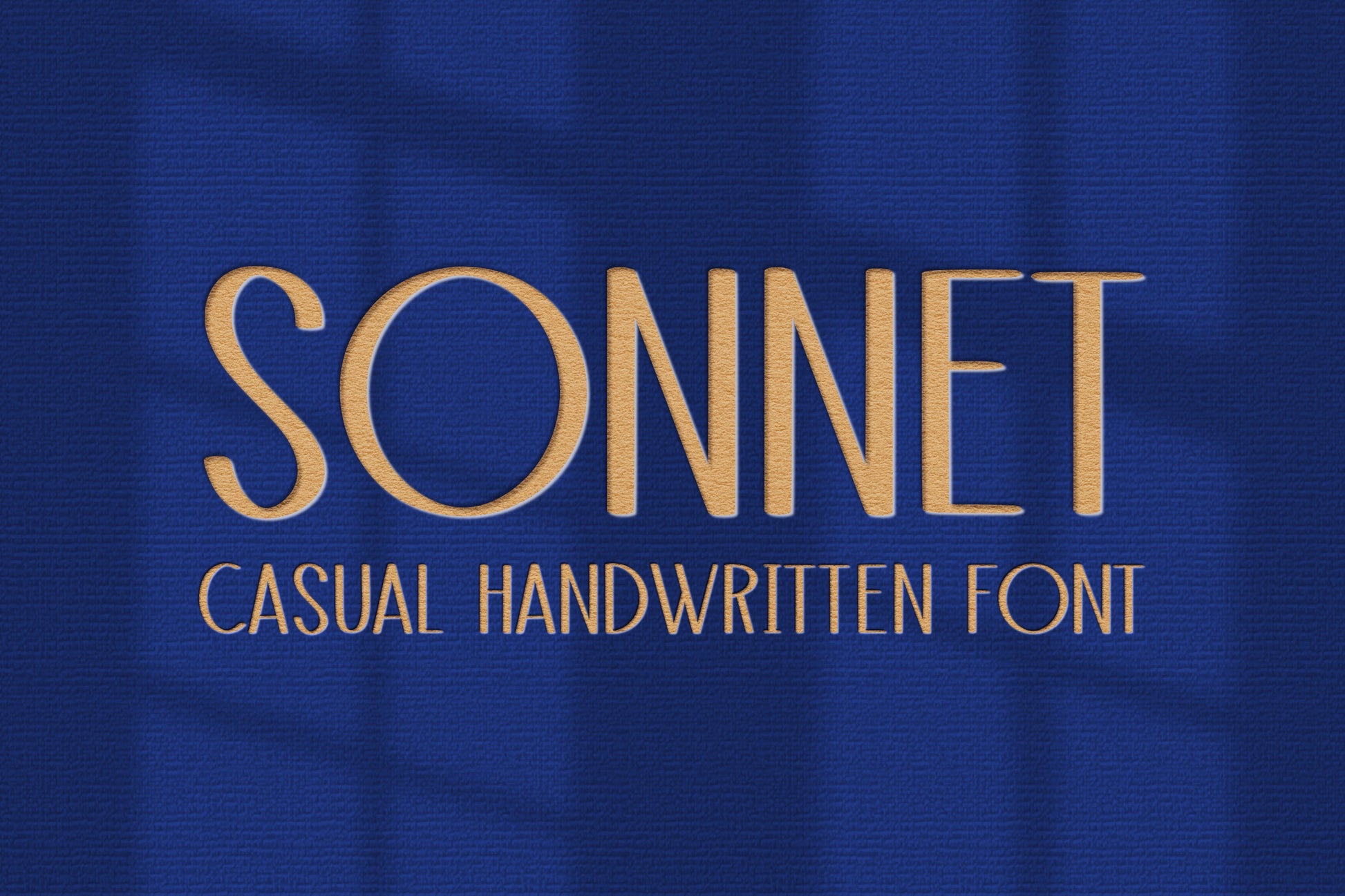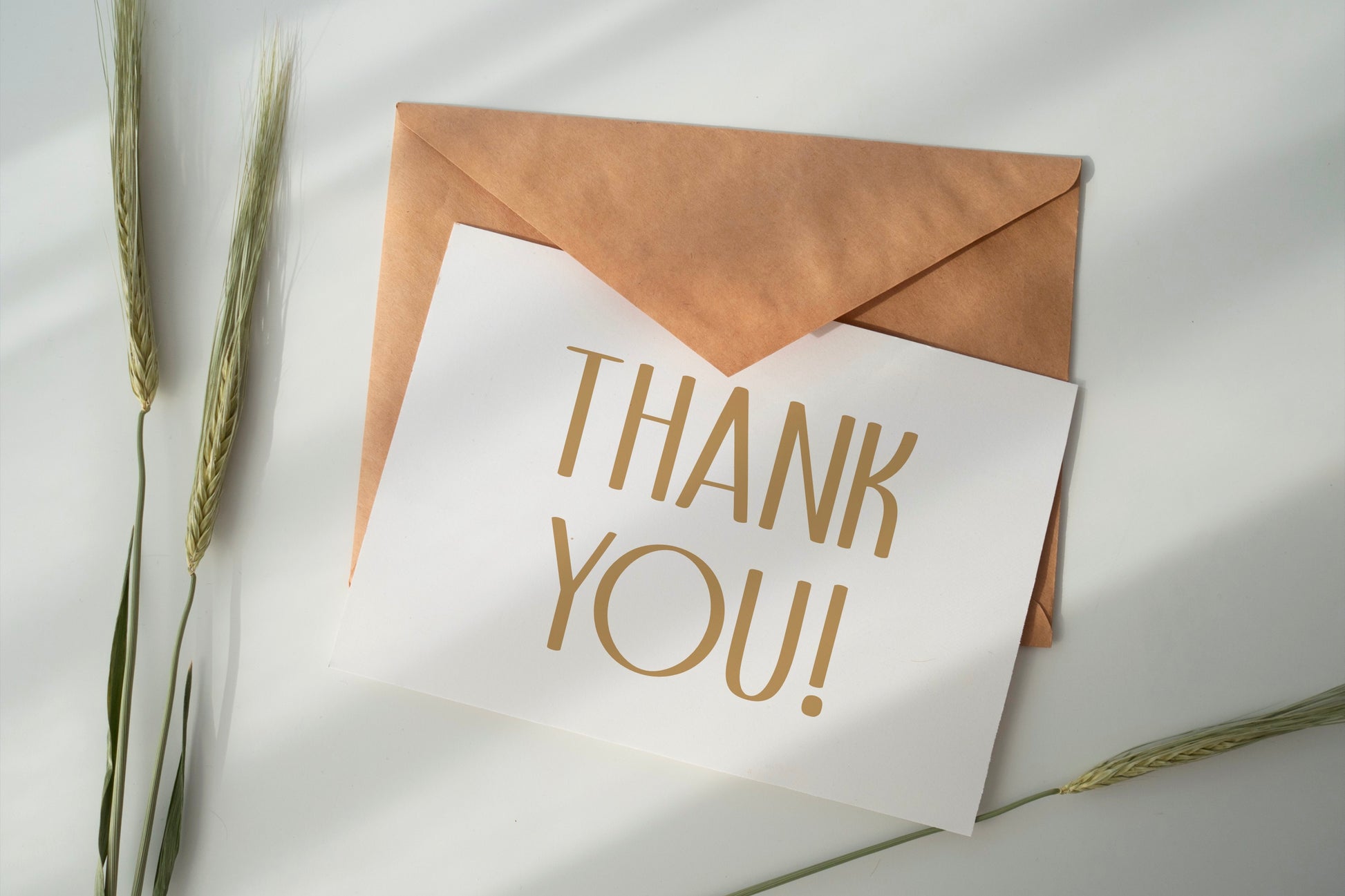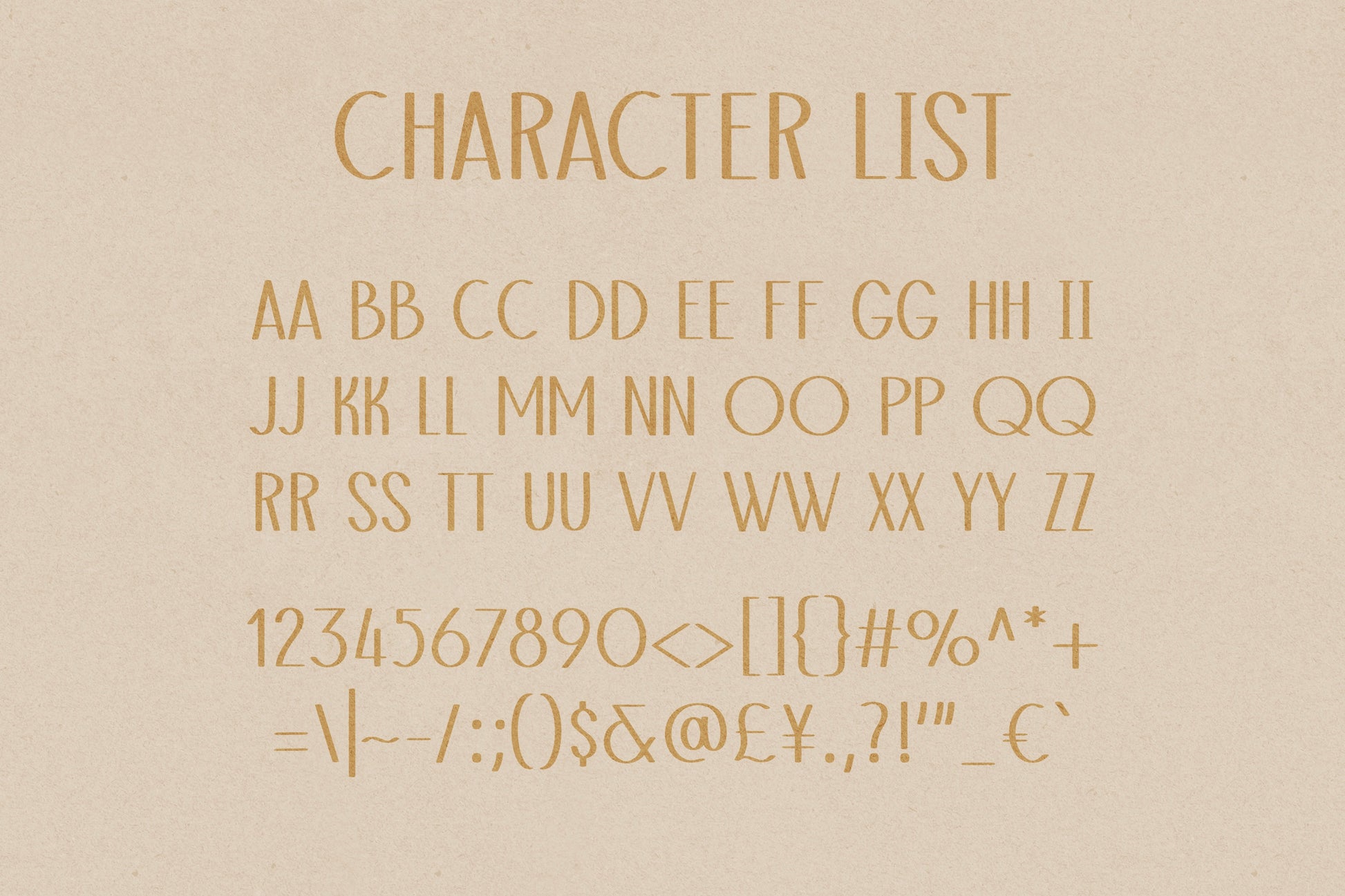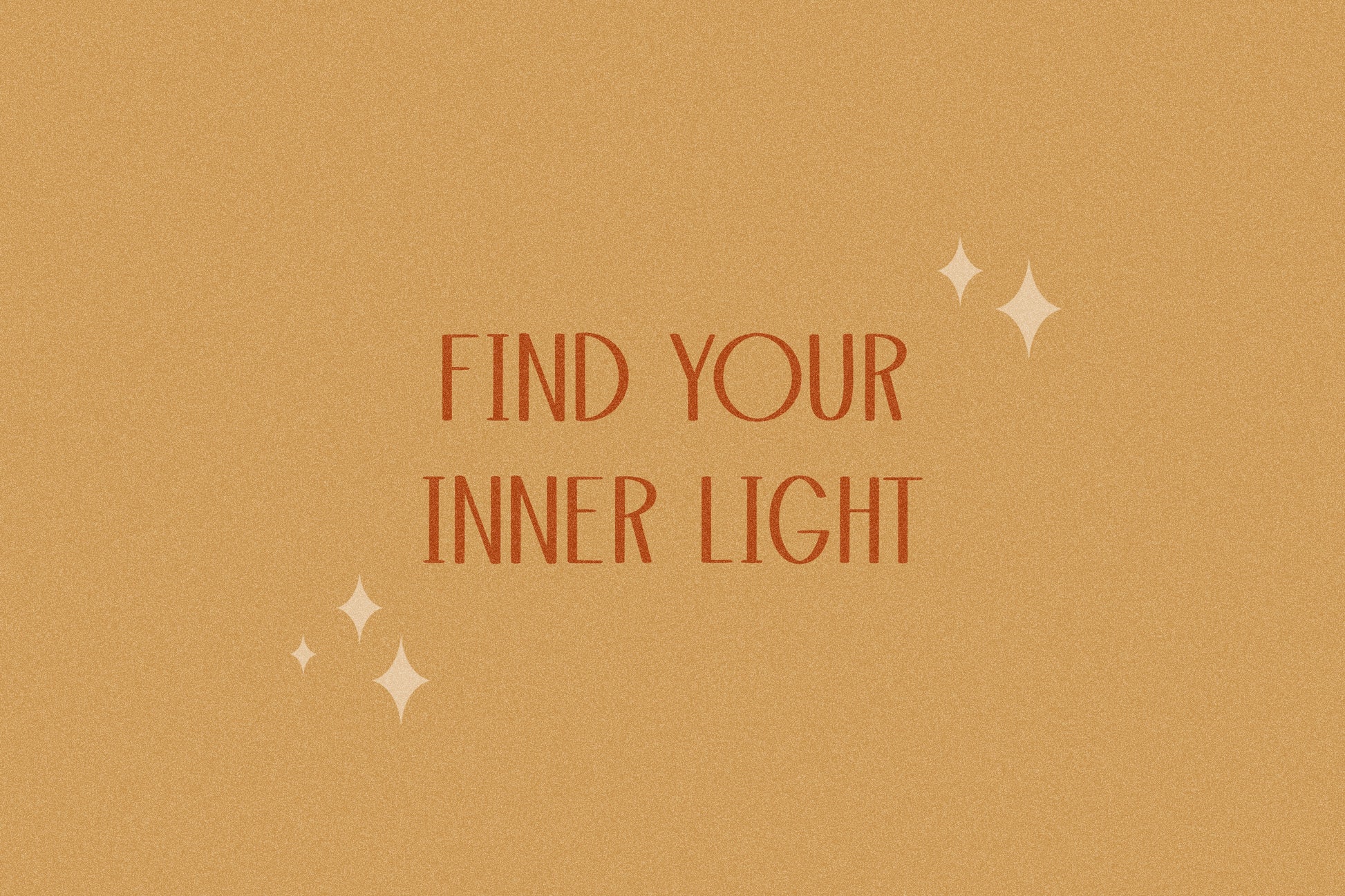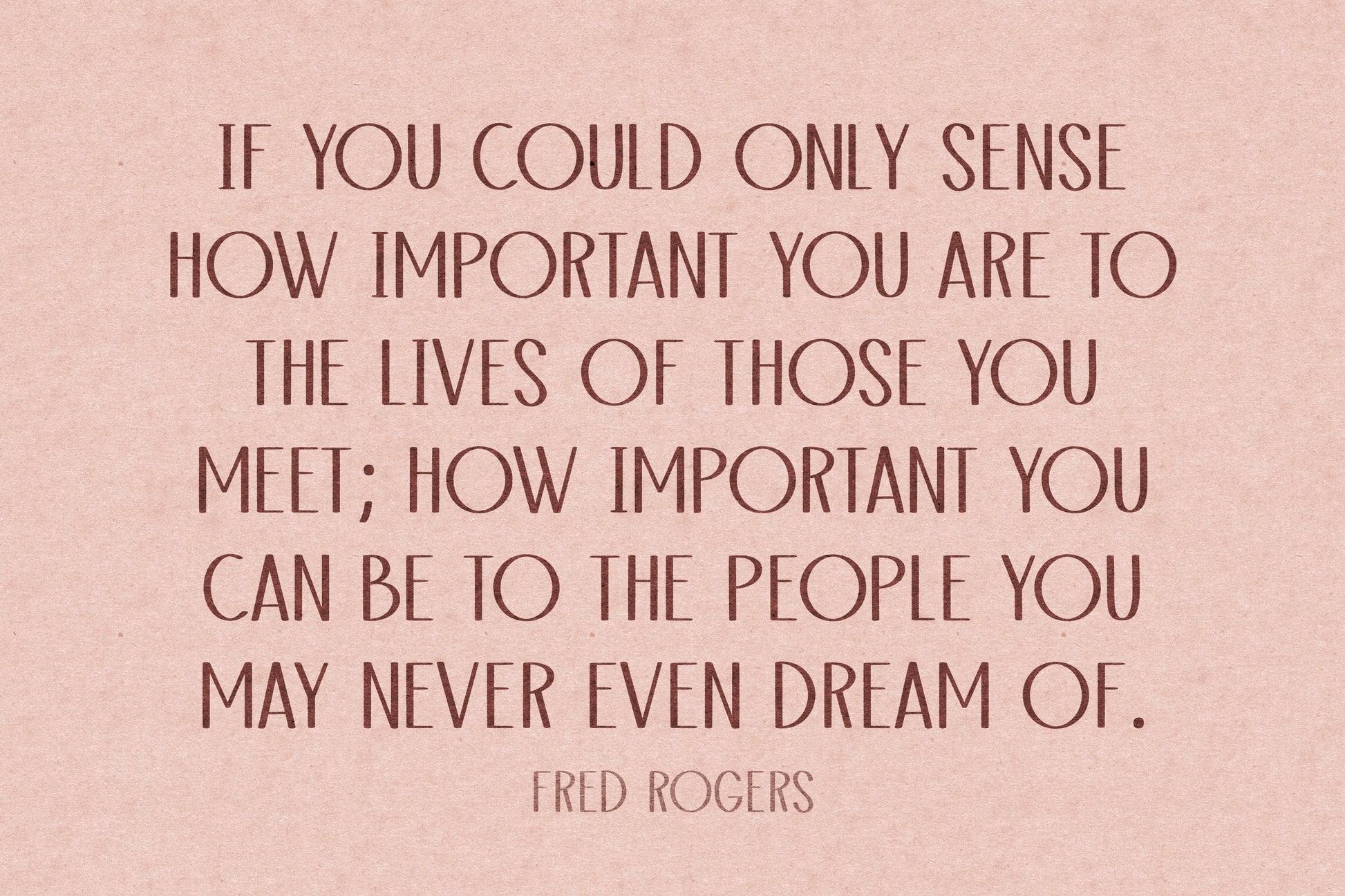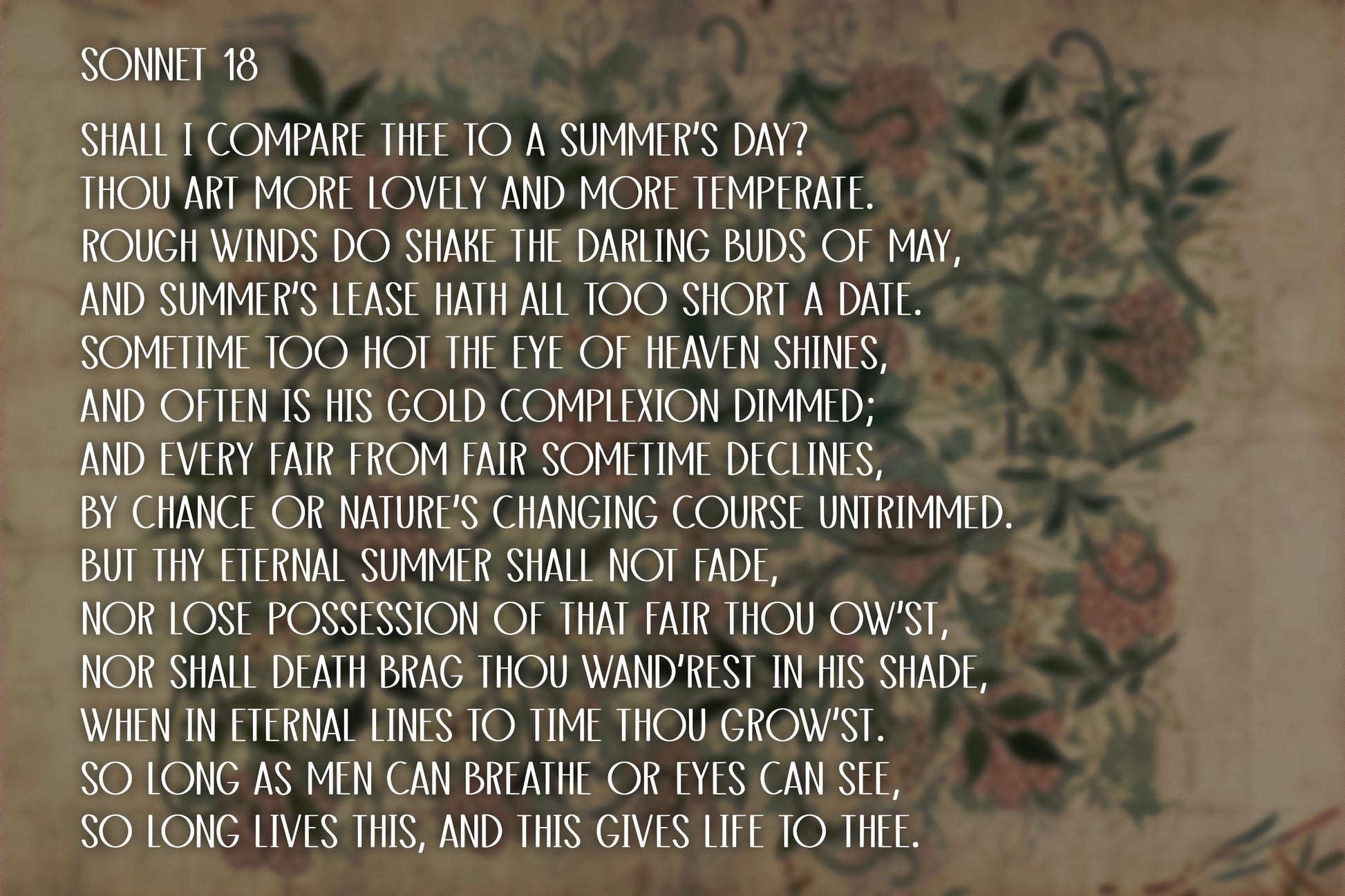
Sonnet Handwritten Font
This is my Sonnet handwritten/hand drawn font. This casual all caps font will add a uniform, handmade touch to your design! It’s perfect for your planners & journals, stickers, posters, and anything else you can think of!